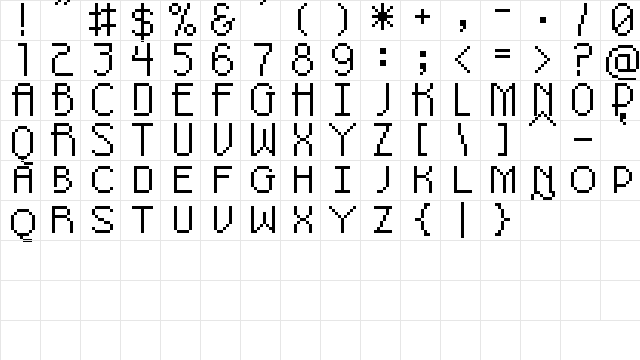
Pixel-Noir Skinny Caps Regular
Design Context for Pixel-Noir Skinny Caps Typeface
Pixel-Noir Skinny Caps is rooted in pixel-grid construction, making it a natural fit for game UI, retro computing aesthetics, and digital nostalgia projects.
A natural choice for retro game titles, chiptune music branding, 8-bit UI, and digital nostalgia projects.
Pro Tip: Pair Pixel-Noir Skinny Caps with flat colour palettes and simple geometric UI elements to reinforce its digital aesthetic.